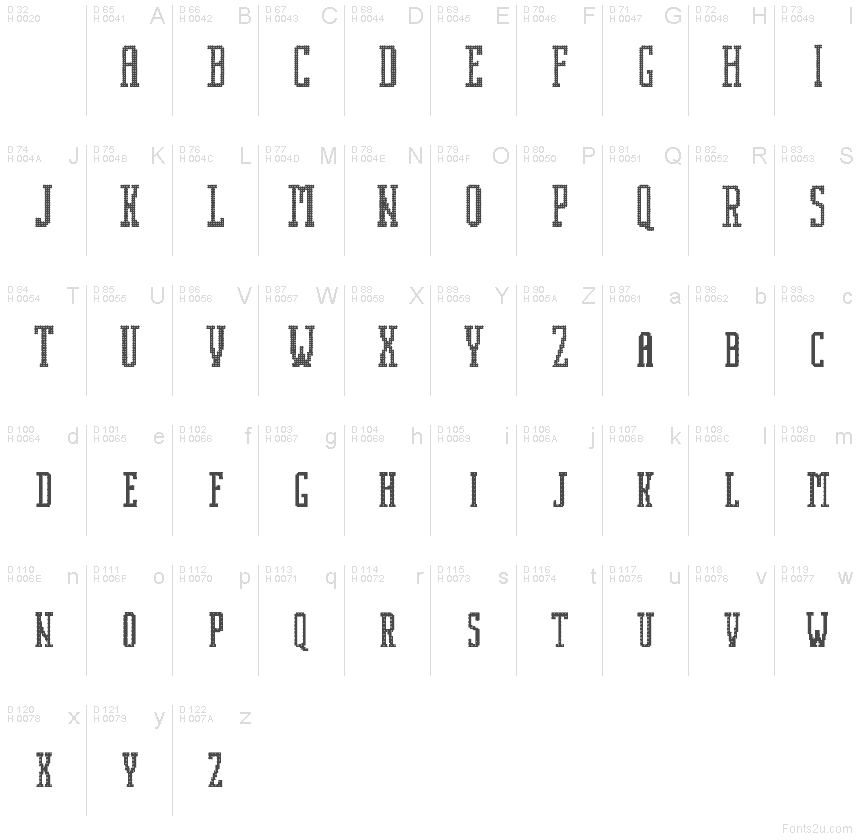
NordinSlabDisco-Regular Demo
Nordin Slab Disco font, designed by Craft Supply Co., is a display typeface inspired by the disco era. Its decorative geometric shapes and textured appearance create a bold, industrial feel with digital influences evident in its texture. Its condensed width makes it great for contemporary applications and vintage-themed designs reminiscent of the 70s.
Nordin Slab Disco is perfect for posters, cover artwork, magazines headlines, album covers, flyers, T-shirts print designs, packaging projects whose retro vibes would benefit from this awesome font. One can also use Nodin Slab Disco in branding projects related to food and beverages among others!